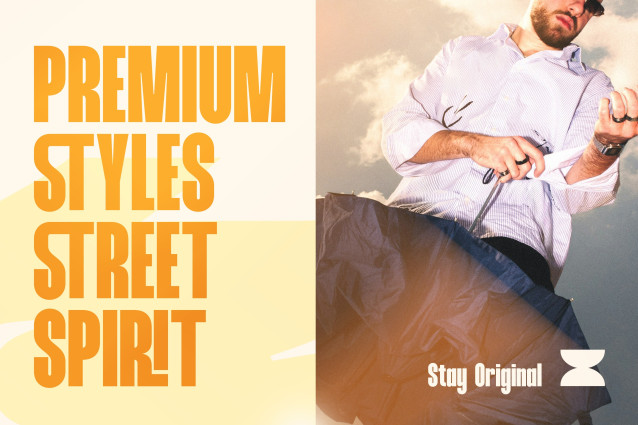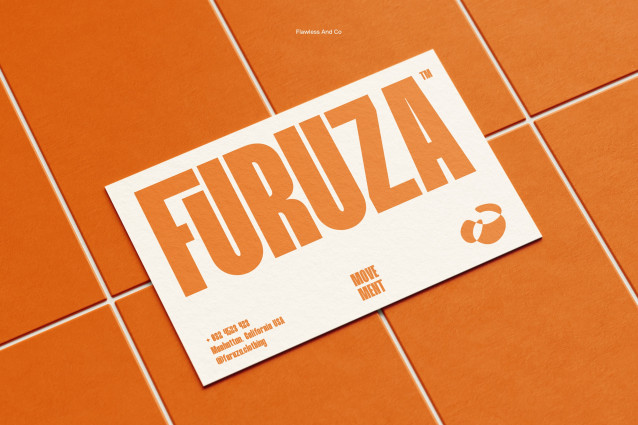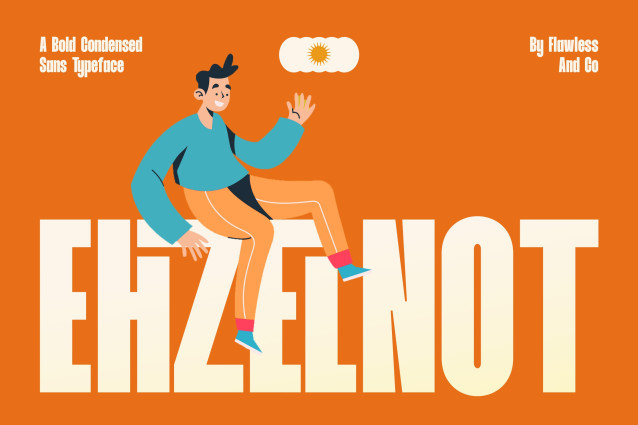
Ehzelnot – Bold Condensed Sans Font
Ehzelnot is a bold condensed display font created for designs that demand a strong, striking, and modern typographic presence. Its tall and compact letterforms create a powerful visual rhythm, allowing headlines and short phrases to stand out while keeping the overall composition clean and impactful.
With its bold structure and condensed proportions, Ehzelnot brings a confident and energetic personality to every design. The narrow width makes it ideal for maximizing space, while its strong forms give your typography the attention-grabbing quality needed for modern display projects.